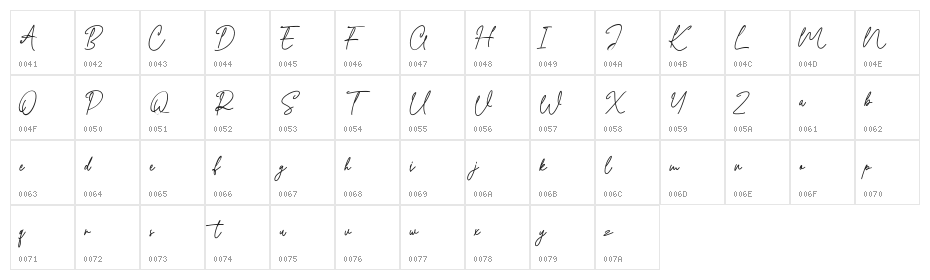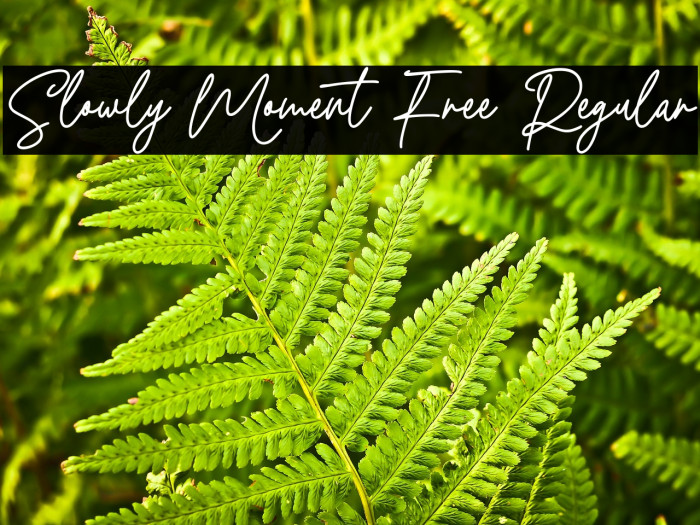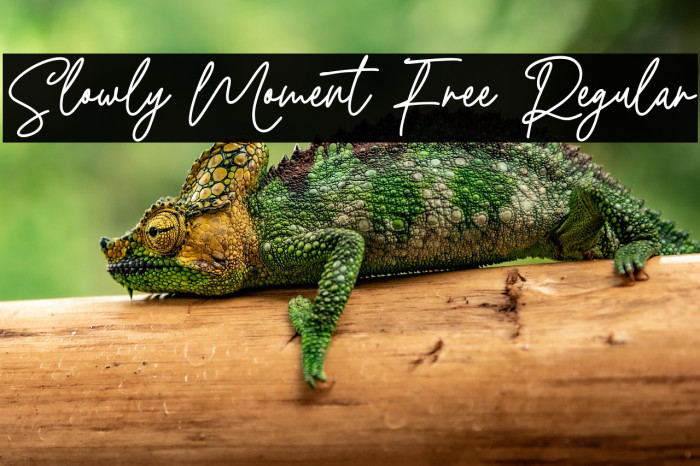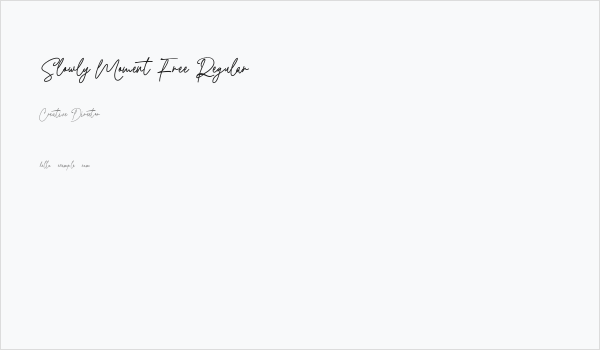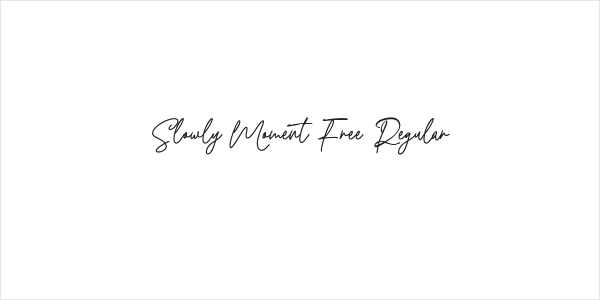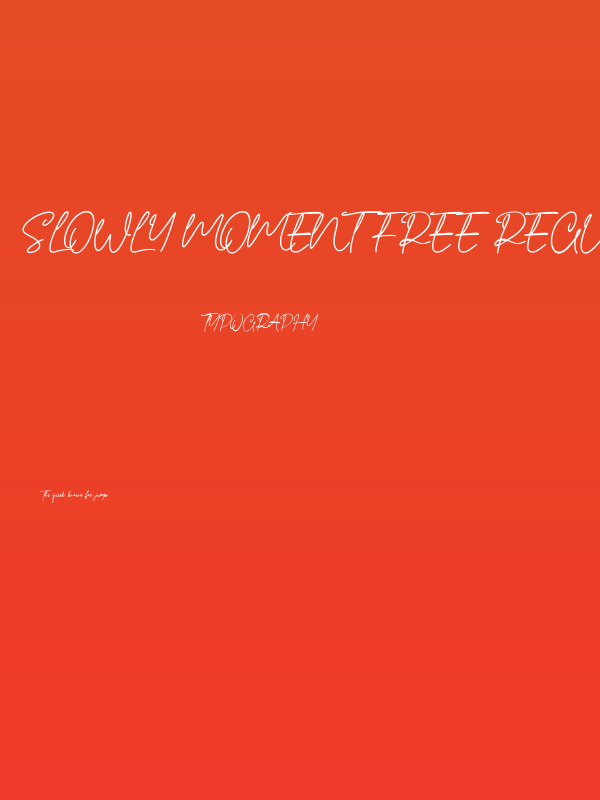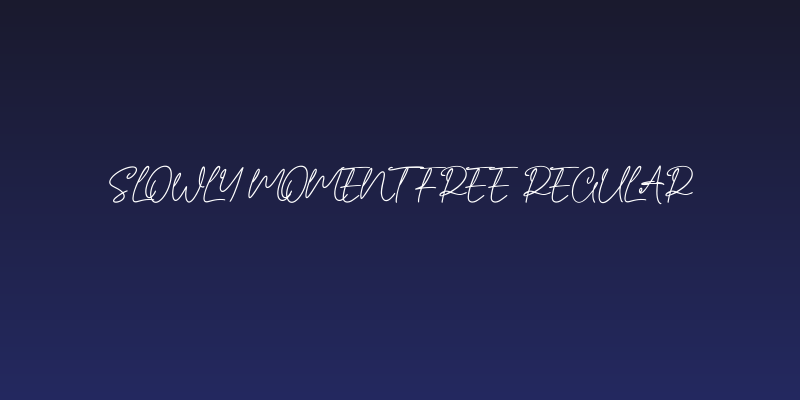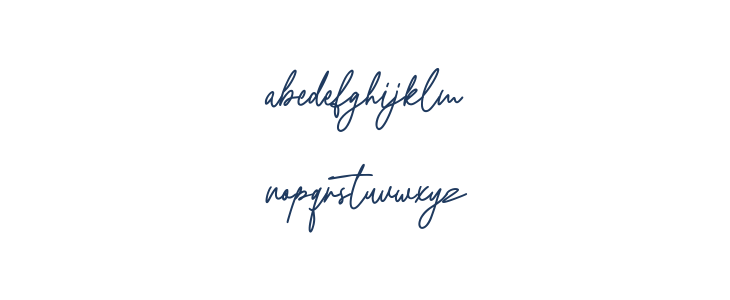
Slowly Moment Free Regular Font
Slowly Moment Free Regular Description
This font exudes a sense of elegance and fluidity, characterized by its cursive, handwritten style. The letters are connected with smooth, flowing strokes, giving it a natural and personal touch. The uppercase letters are slightly more elaborate, with extended loops and swirls, while the lowercase letters maintain a consistent, flowing baseline. The overall appearance is both sophisticated and approachable, making it suitable for a variety of creative applications. The font's design is balanced, with moderate spacing between characters, ensuring readability while maintaining its artistic flair.
| Overall Style | Elegant, Artistic |
| Proposed Projects | Ideal for wedding invitations, personal branding, greeting cards, and artistic projects. |